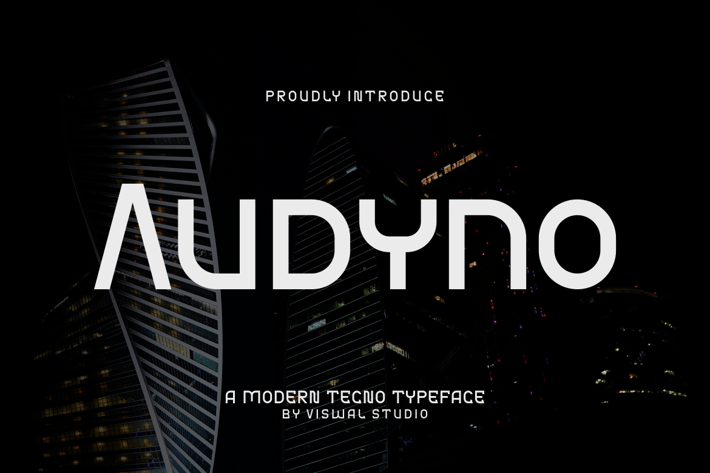
Audyno - Modern Tech Typeface
Viswal
Presenting Audyno - Font is suitable for badge, labels, logo, branding, magazine, poster and etc. Our fonts have Uppercase & Lowercase, Numeral & Punctuation, Multilingual support and Opentype Features. For Amazing designs you can mix with other fonts as a complement.